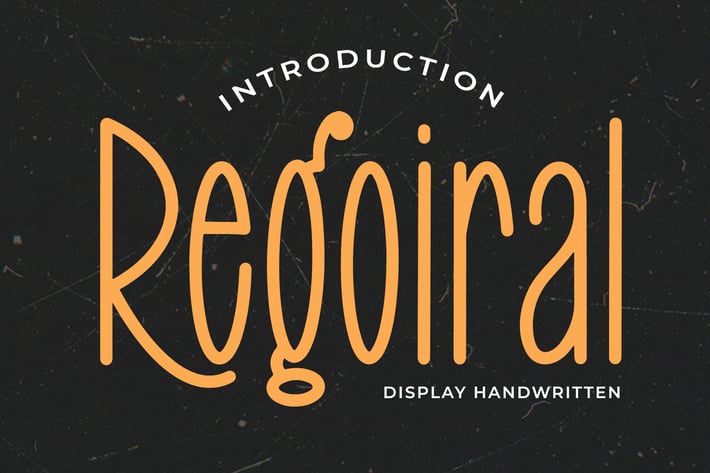
Regoiral - Display Handwritten Font
Regoiral is a unique display typeface perfect for titles, large text, branding, logotypes & graphic design purposes such as posters, pamphlets, and advertisements. This letter font can be a great choice for creating amazing logos, promotional content, and marketing presentations that can bring uniqueness and freshness at its best.
Uppercase and Lowercase letters
Numbering and Punctuations
Alternate